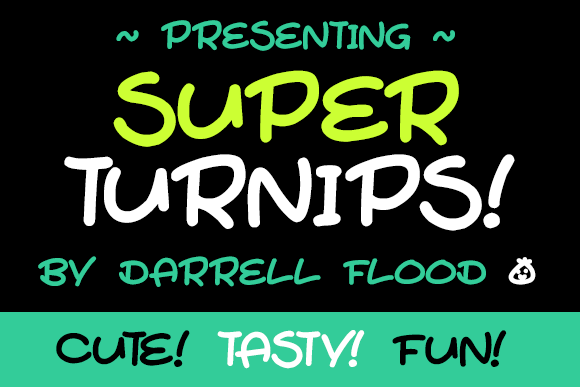
Super Turnips Font
About Super Turnips Font
Super Turnips is a cute, hand drawn marker font in a wide and loose style. Perfect for family friendly themes!